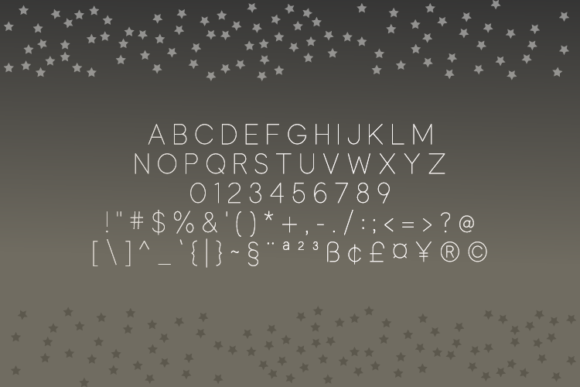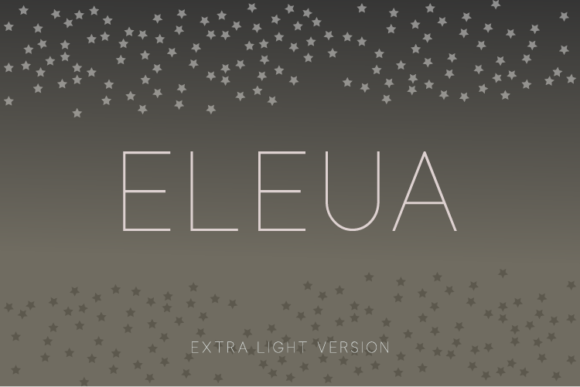
Introducing Eleua Extra Light Font: The Ultimate Sans Serif for Modern Designs
Are you tired of using fonts that are too ornate or too dull for your designs? Look no further than Eleua Extra Light Font, a simple and casual sans serif font that is sure to elevate your work. With its clean feel and beautiful arrangement of letters, Eleua is the perfect choice for both formal and non-formal designs. In this article, we’ll take a closer look at the features and benefits of Eleua Extra Light Font and why it’s a must-have for designers and crafters.
What is Eleua Extra Light Font?
Eleua Extra Light Font is part of the Eleua font family, a sans serif typeface designed to provide a clean and modern look to your designs. With 10 weights to choose from, you can select the perfect font to suit your needs. Whether you’re working on a formal project, such as a business logo or website, or a non-formal project, like a social media graphic or craft project, Eleua Extra Light Font is the perfect choice.
Key Features of Eleua Extra Light Font
- Clean and Simple Design: Eleua Extra Light Font features a simple and clean design that makes it perfect for modern designs.
- 10 Weights to Choose From: With 10 weights to choose from, you can select the perfect font to suit your design needs.
- Sans Serif Typeface: Eleua Extra Light Font is a sans serif typeface, making it perfect for digital and print designs.
- Beautiful Arrangement of Letters: The font features a beautiful arrangement of letters that makes it stand out from other sans serif fonts.
Benefits of Using Eleua Extra Light Font
So, why should you choose Eleua Extra Light Font for your designs? Here are just a few benefits of using this amazing font:
- Versatility: Eleua Extra Light Font is versatile and can be used in both formal and non-formal designs.
- Readability: The font is highly readable, even at small sizes, making it perfect for body text and captions.
- Uniqueness: Eleua Extra Light Font has a unique and distinctive look that sets it apart from other sans serif fonts.
Who Can Benefit from Eleua Extra Light Font?
Eleua Extra Light Font is perfect for a wide range of designers and crafters, including:
- Graphic Designers: Graphic designers can use Eleua Extra Light Font for logos, branding, and marketing materials.
- Web Designers: Web designers can use the font for website designs, including headings, body text, and captions.
- Crafters: Crafters can use Eleua Extra Light Font for a variety of projects, including card making, scrapbooking, and DIY signs.
- Small Business Owners: Small business owners can use the font for their branding and marketing materials.
In conclusion, Eleua Extra Light Font is a simple and casual sans serif font that is perfect for modern designs. With its clean feel, beautiful arrangement of letters, and 10 weights to choose from, it’s a versatile font that can be used in both formal and non-formal designs. Whether you’re a graphic designer, web designer, crafter, or small business owner, Eleua Extra Light Font is a must-have font that can elevate your work and help you achieve professional-looking results.